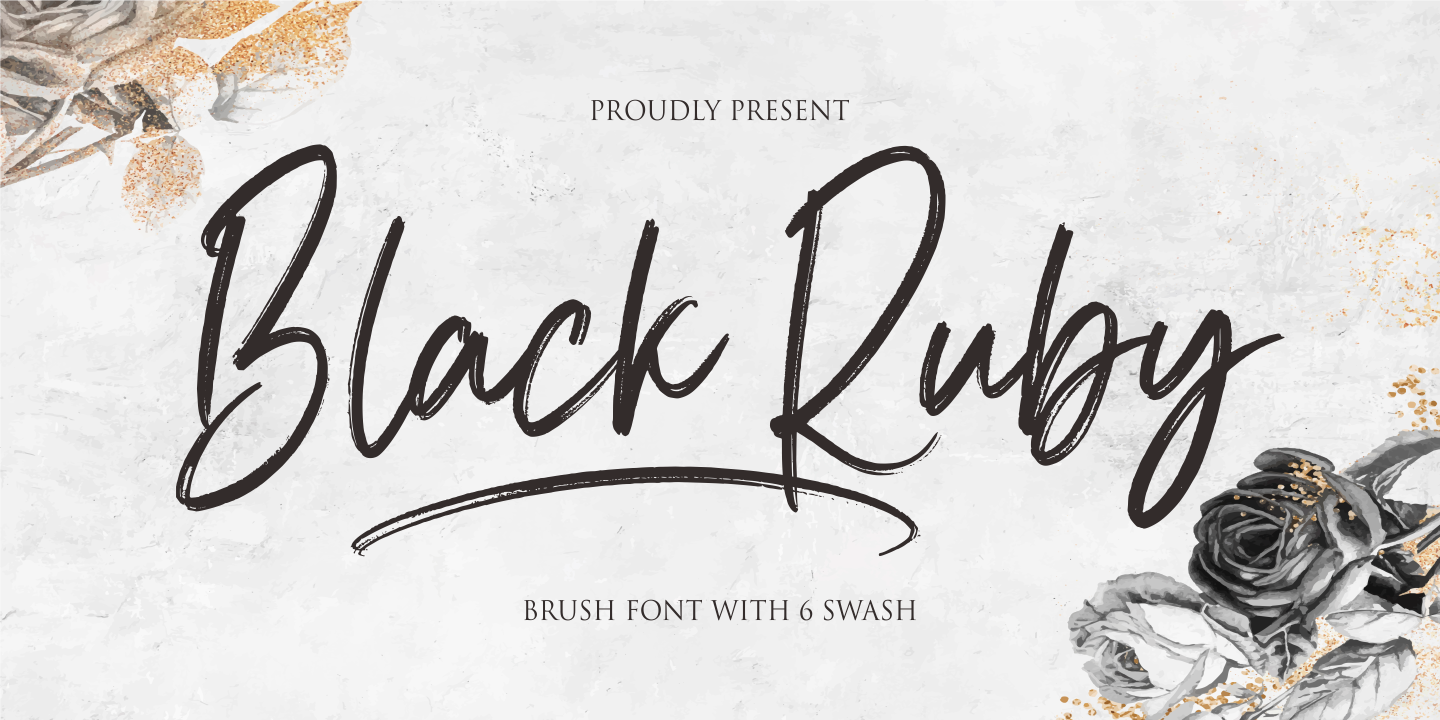
Black Ruby Font excels in luxury branding projects, premium packaging design, high-end fashion campaigns, jewelry advertisements, cosmetic product labels, restaurant menus, wine bottle designs, wedding invitations, and sophisticated marketing materials.
Black Ruby Font creates excitement through its elegant script characteristics and refined letterforms that exude premium quality. This typeface commands attention with its sophisticated curves and luxurious appearance that instantly elevates any design project to professional standards.
Black Ruby Font family encompasses various stylistic options including Regular, Bold, Light, Condensed, and Ornamental versions. Additional decorative elements and swash alternatives provide designers with extensive customization possibilities for creating unique typographic compositions.
The sophisticated elegance of Black Ruby Font Free Download makes it indispensable for projects demanding premium aesthetics. This script typeface seamlessly blends traditional calligraphy influences with modern design sensibilities, creating timeless appeal that resonates across diverse applications. Its carefully crafted letterforms ensure excellent legibility while maintaining artistic sophistication.
Luxury brands consistently select Black Ruby Font for campaigns requiring distinguished typography. The font's premium character makes it ideal for high-value product presentations and exclusive brand communications. Its versatile nature adapts beautifully to both large display applications and refined text settings.
Experience the luxury of Black Ruby Font and enhance your designs with this exceptional typeface that perfectly balances elegance with contemporary appeal for truly memorable visual communications.